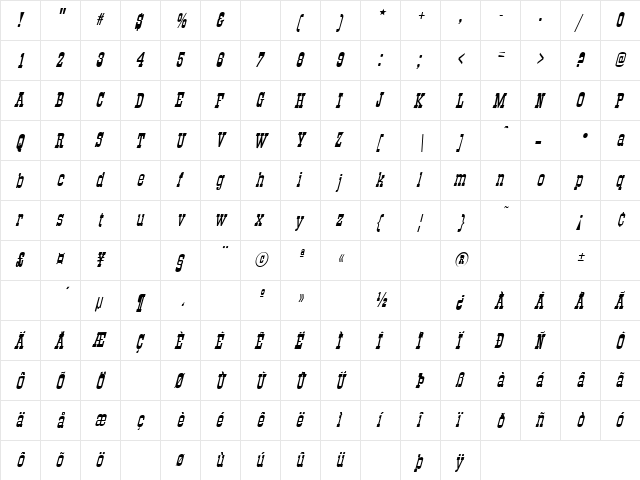
All Night 10 Italic
Design Context for All Night 10 Typeface
All Night 10 is a composed and adaptable typeface that performs quietly and consistently across a wide range of design contexts. Its italic angle brings a sense of urgency and motion to the letterforms.